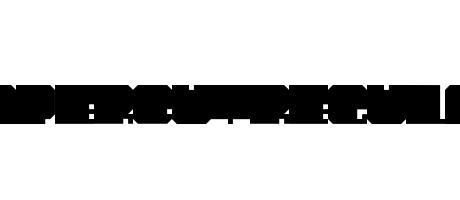
PaperCut
PaperCut-Regular: A bold, sans-serif typeface with a slightly chunky, almost hand-carved feel. Its uppercase letters are uniform in height and width, creating a strong, geometric presence. The characters are slightly compressed, contributing to a dense, powerful visual impact. The overall style suggests strength and reliability.